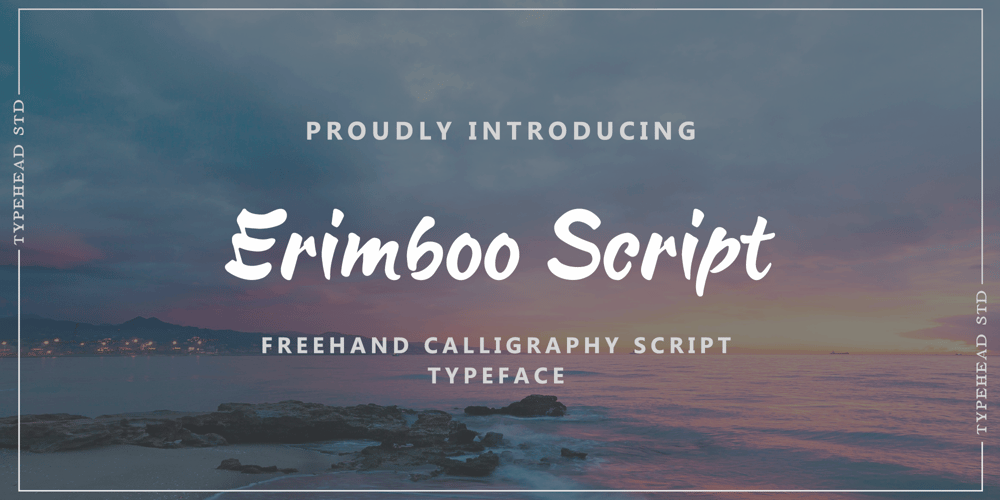
Erimboo Font Family was designed by Gatot Triardi Pramaji and published by Typehead Studio. Erimboo contains 1 styles and family package options. The “Erimboo” font is a perfect embodiment of the beauty and elegance of calligraphic style.Key Features:~ Smooth lines and beautiful handwriting flow.~ Elegance and a classic touch, suitable for designs that require a luxurious ambiance.~ Creative and diverse letter characters, making it perfect for titles, logos, invitations, and much more.~ Includes various opentype options like ligatures, alternate characters, and numerals for flexibility and variation in your designs.The “Erimboo Script ” font is the perfect choice for those who appreciate the beauty of calligraphy in their designs. With its unique characters and unparalleled quality, this font will be a valuable asset in your collection.